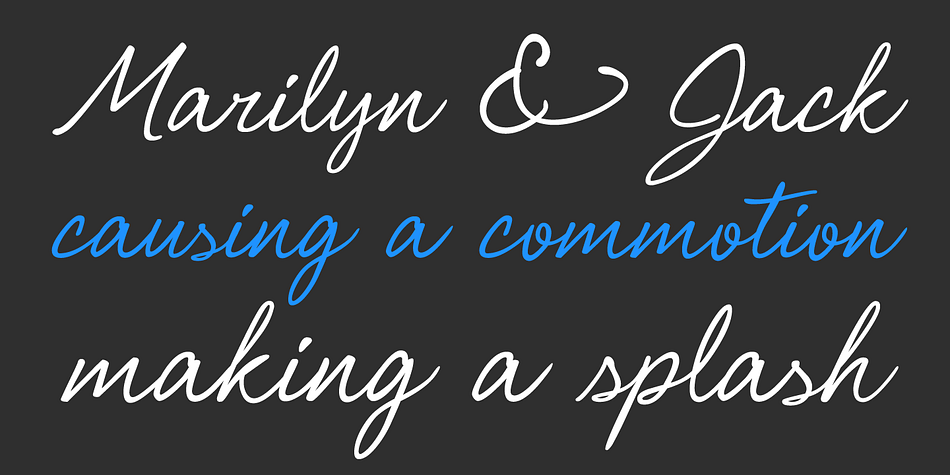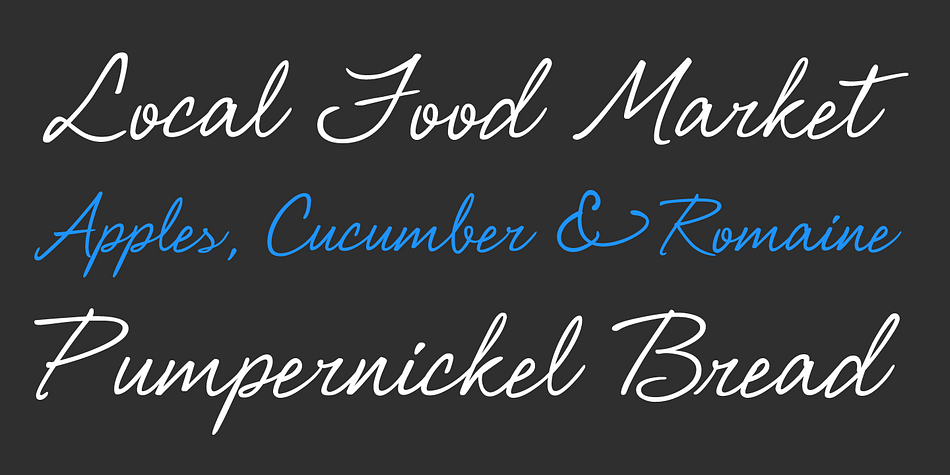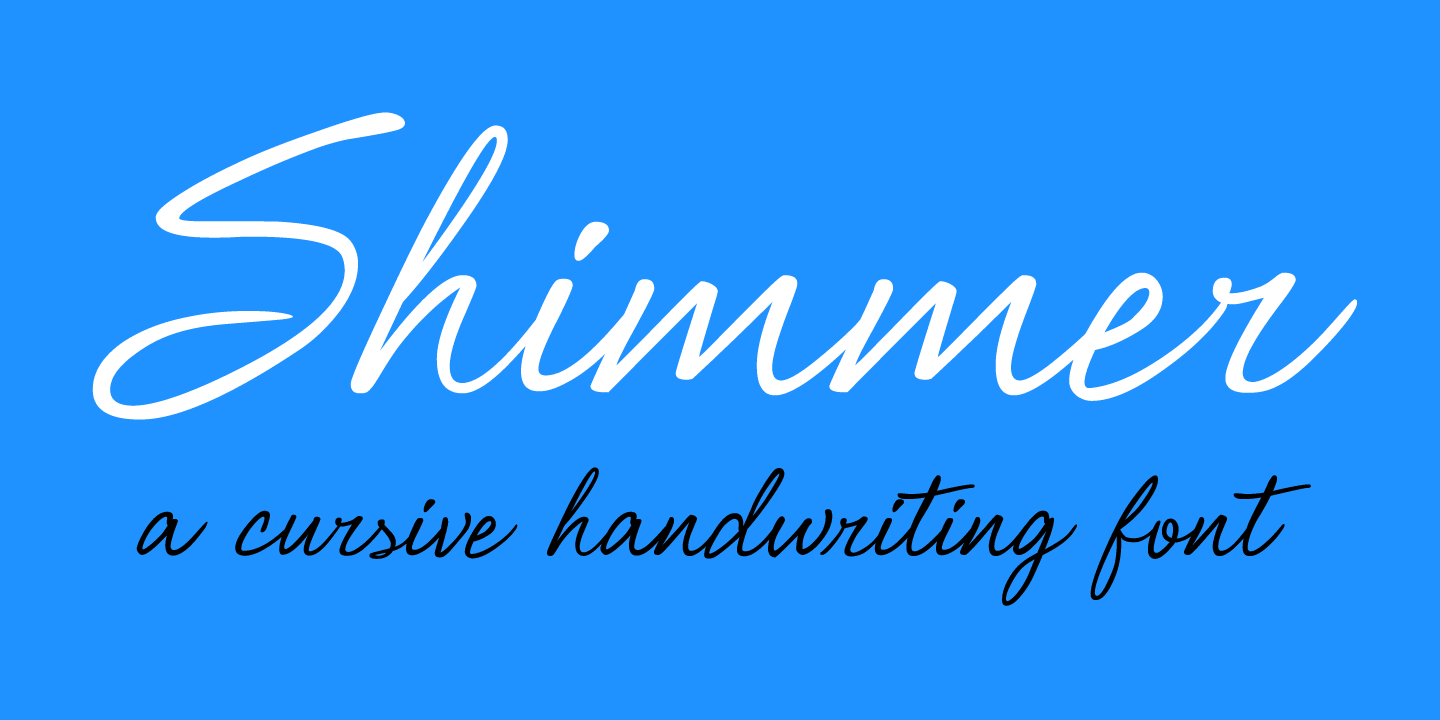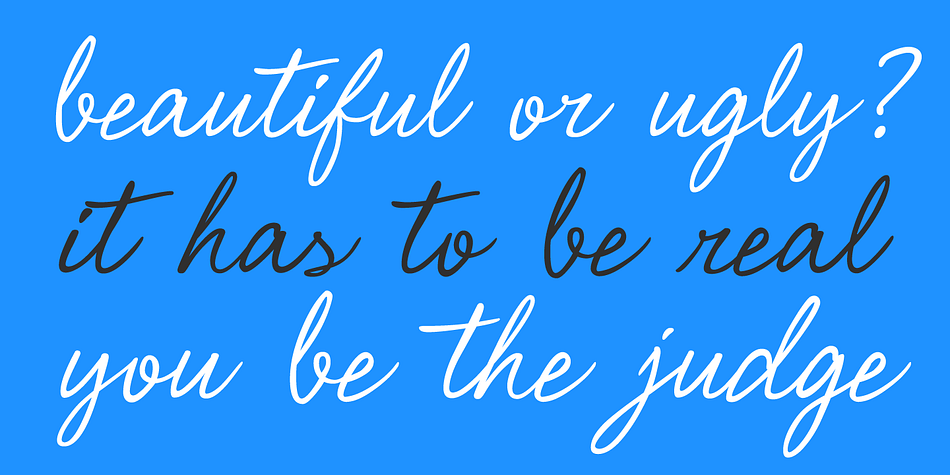
Shimmer OT is a script font family. This typeface has two styles and was published by Blue Vinyl Fonts.
Shimmer looks just like real cursive handwriting, because that’s exactly what it is!
The letters were meticulously hand traced from actual samples of handlettering and great care was taken to keep the strokes natural and fluid. Being yourself is beautiful and I think the same applies to handwriting fonts!